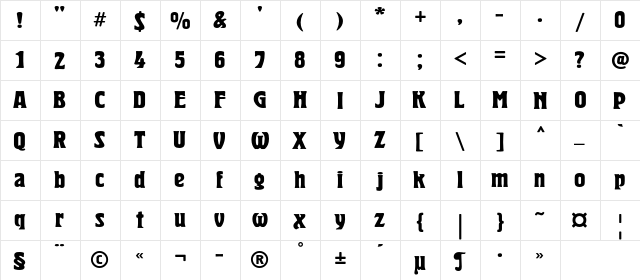
HeroldC Regular
Design Context for HeroldC Typeface
HeroldC is a composed and adaptable typeface that performs quietly and consistently across a wide range of design contexts.